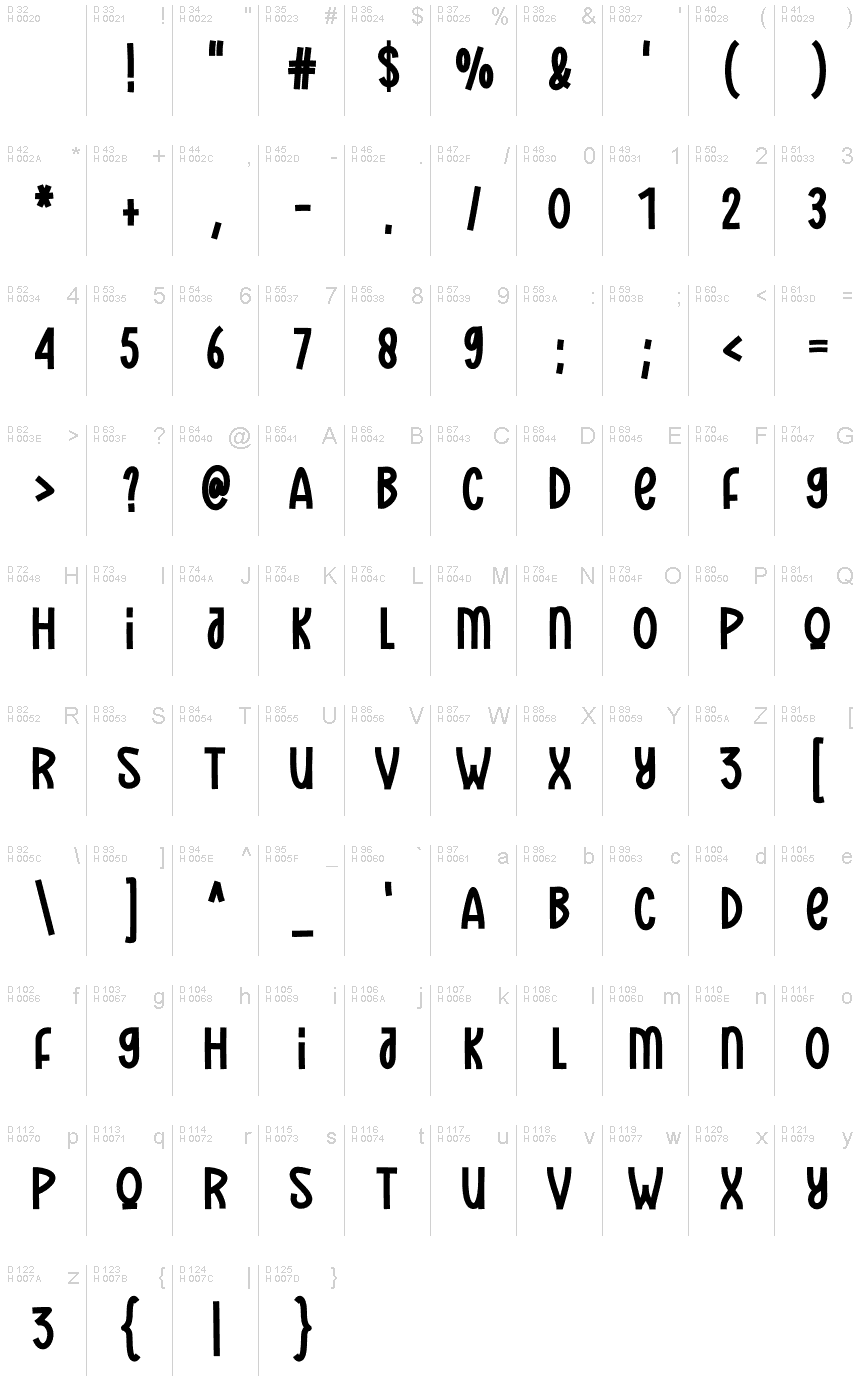
Our Christmas
Our Christmas by Scratchones embodies the joy and whimsy of the holiday season with its bold, handcrafted charm. This semi-light, condensed display font captivates with its playful yet elegant letterforms, making it an exceptional choice for a range of creative endeavors. Its versatility shines in wall displays and wedding invitations or adds a personalized touch to social media posts and logos.
The distinct style of Our Christmas ensures your advertisements, product packaging, and designs stand out with festive flair. Whether you're crafting labels, watermarking photography, or designing bespoke stationery, this font infuses your projects with the unique spirit of celebration and warmth that only handwritten typography can provide.